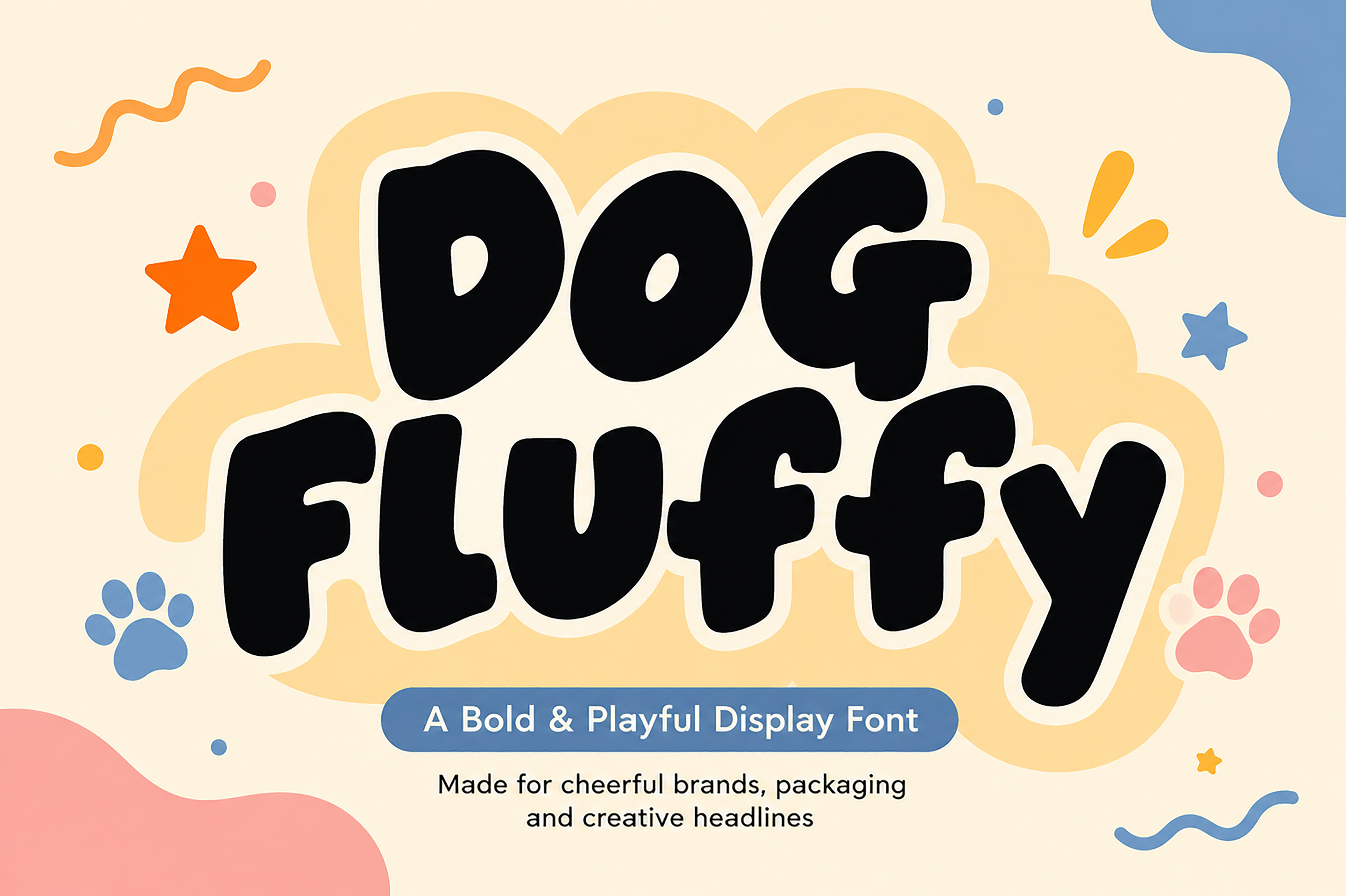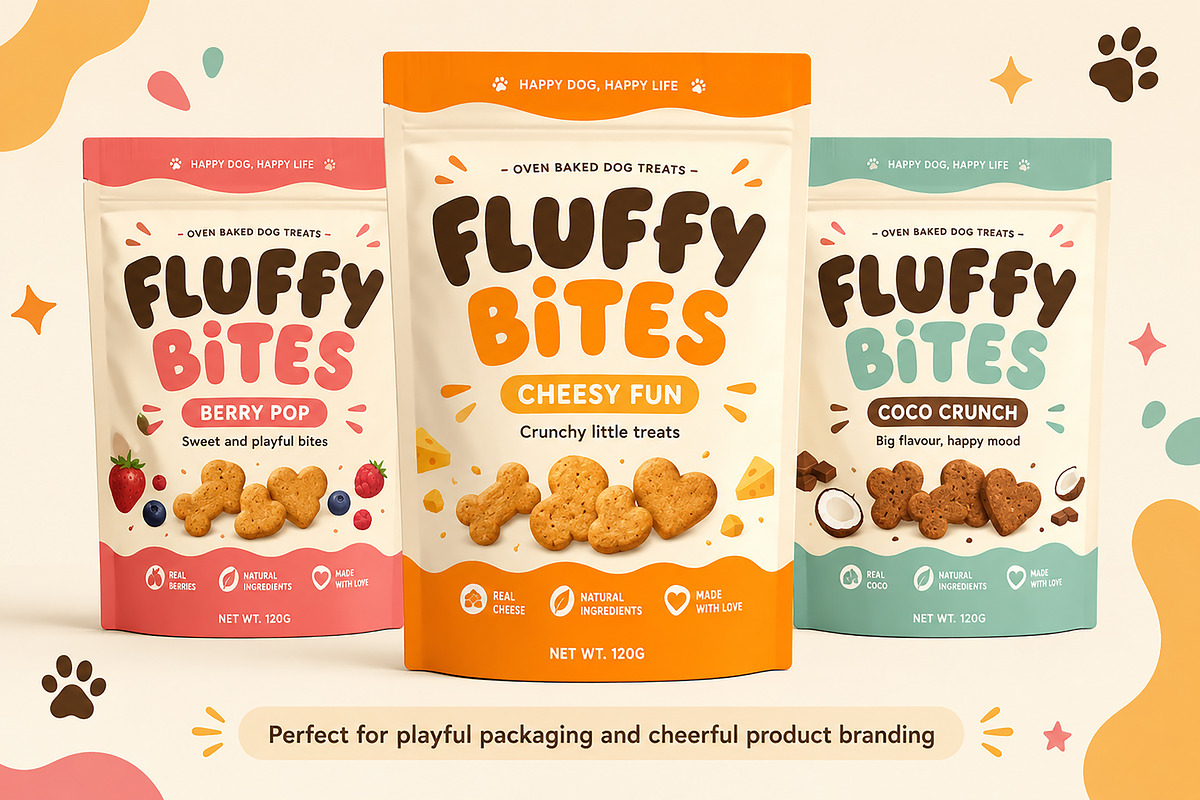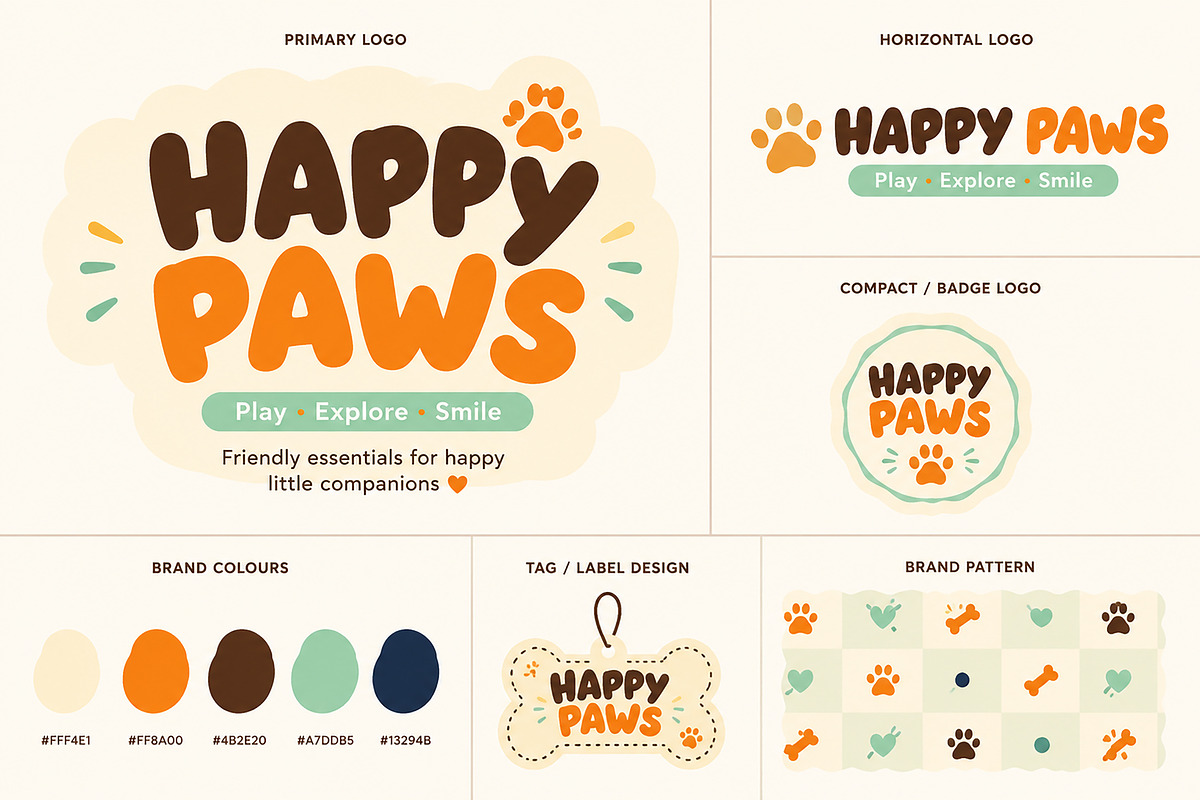
Dog Fluffy – Playful Display Font
Dog Fluffy is a bold, playful display font designed to bring warmth, fun, and personality to your creative projects. Featuring chunky rounded letterforms with a handcrafted feel, this font delivers a cheerful and friendly look that instantly grabs attention.
Whether you're designing for children's brands, pet products, snack packaging, social media, posters, merchandise, or playful logos, Dog Fluffy adds a joyful and memorable touch to every design. Its soft curves and bold shapes make headlines stand out while maintaining excellent readability.
Perfect for designers, branding agencies, crafters, and content creators who want typography that feels energetic, approachable, and full of character.
Bring a playful, bold, and lovable personality to your next creative project with Dog Fluffy.